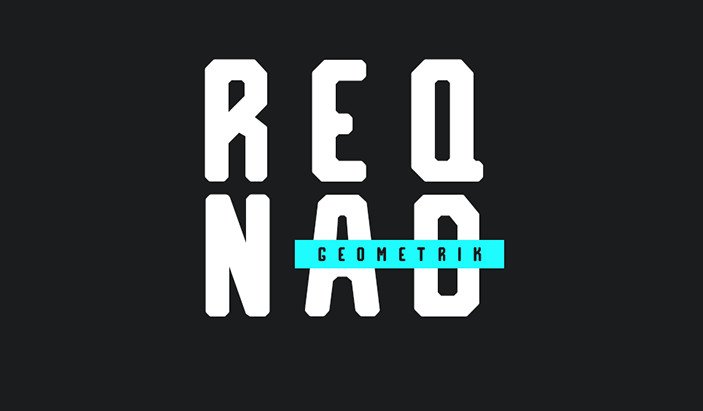
Reqnad Geometrik Typeface
Introducing: Reqnad Geometrik Typeface ! Reqnad Geometrik is inspired by geometrically inclined modern architecture and industrial design. Reqnad Geometrik font designed and shared by Fhumulani Nemulodi. With dry clean lines, Emanuela is perfect for branding projects, home-ware designs, product packaging – or simply as a stylish text overlay to any background image.